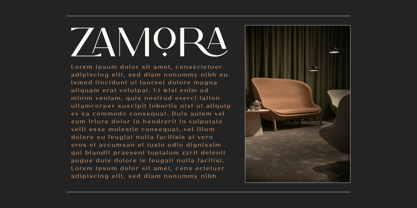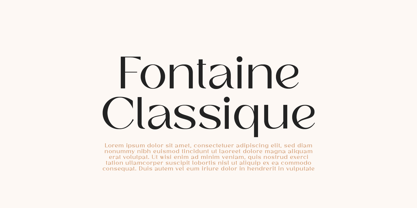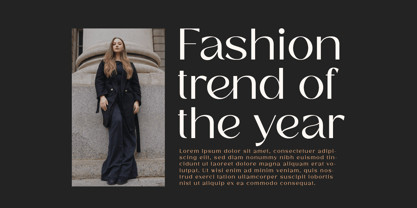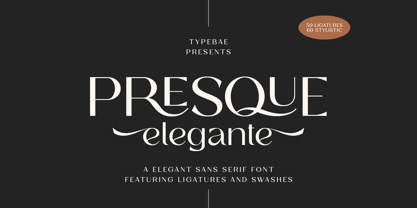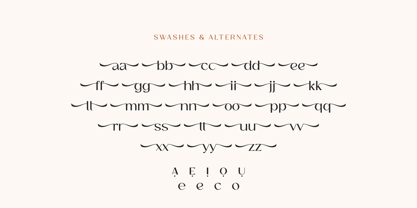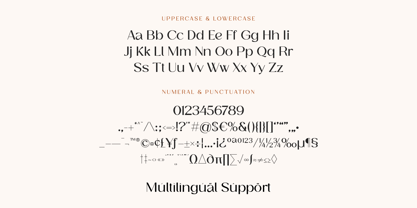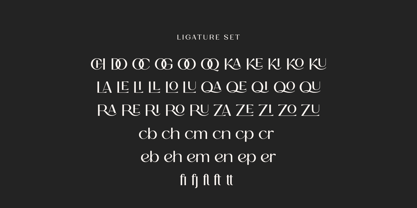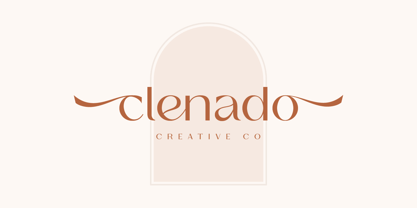
Presque Elegante
Die Schriftfamilie Presque Elegante wurde von Iqbal Pauji entworfen und von Typebae veröffentlicht. Presque Elegante enthält 2 Stile und Familienpaketoptionen. Mehr über diese Familie
Introducing Presque Elegante, a sophisticated and stylish sans serif font designed to elevate your creative projects. Featuring 50 ligatures and 60 stylistic alternates, this typeface offers endless possibilities to craft unique and luxurious typography.
- Uppercase, Lowercase, Numerals & Punctuation
- Ligatures, Swashes & Stylistic Alternates